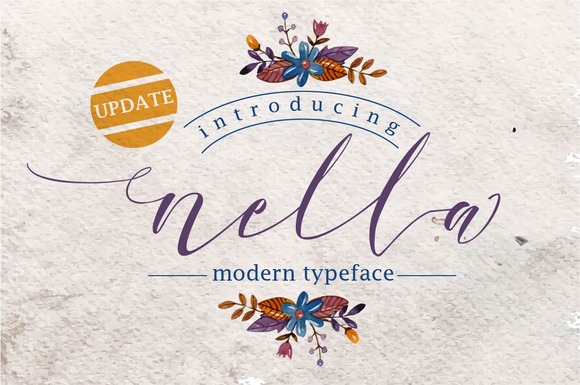
Behold, Nella Script Font, a calligraphic masterpiece that dances across the digital canvas with an elegance that captivates the senses. A creation of Olexstudio, this script typeface is a symphony of graceful strokes and delicate curves, evoking a sense of timeless beauty.
Nella Script Font isn't merely a collection of letters; it's an invitation to express your creativity in myriad ways. Its versatility knows no bounds, lending itself effortlessly to a diverse range of projects. Envision your wedding invitations adorned with Nella's elegant script, the words flowing like a gentle melody, promising a day filled with love and joy. Picture your business logo, its name rendered in Nella's distinctive characters, exuding professionalism and sophistication.
Unleash your imagination and let Nella Script Font guide you through a world of creative possibilities. Its applications are endless: letterheads, signage, labels, news, posters, badges, and more. Each project infused with a touch of elegance, a whisper of charm, and a dash of Nella's unique personality.
But Nella Script Font isn't just about aesthetics; it's about connecting with your audience on a deeper level. Its graceful lines and enchanting curves evoke emotions, drawing readers into your words and captivating their attention. Whether you're crafting a heartfelt message, promoting a product, or simply sharing a thought, Nella Script Font amplifies your words, making them resonate with your audience.
So, embark on this creative journey with Nella Script Font, and discover a world of captivating designs and meaningful connections. Let your imagination soar, and let Nella's elegant script guide you toward creative greatness.